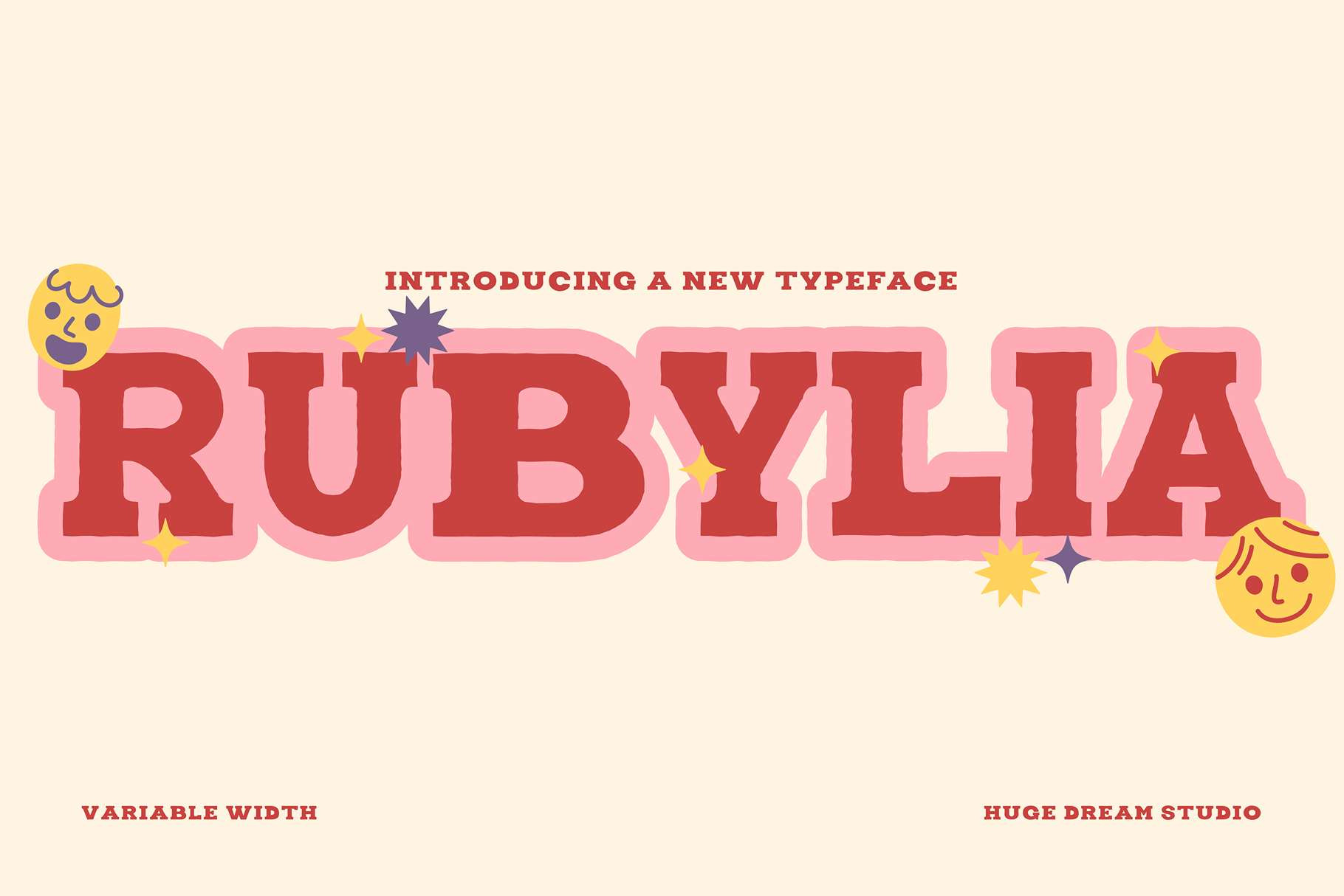
Rubylia – Variable Width Font
Rubylia – Variable Width Font is a quirky and bold typeface that breaks all the rules in the best way possible. Inspired by the raw, cut and paste charm of Simple Ransom Note but with a cleaner, more modern twist, Rubylia brings playful rebellion to your designs. Each letter comes in varying widths, giving your typography a spontaneous, handcrafted vibe while still keeping things legible and stylish. Let Rubylia turn your message into a loud and unapologetic statement.
Elevate and explore the design possibilities with this Simple Ransom Note Font!